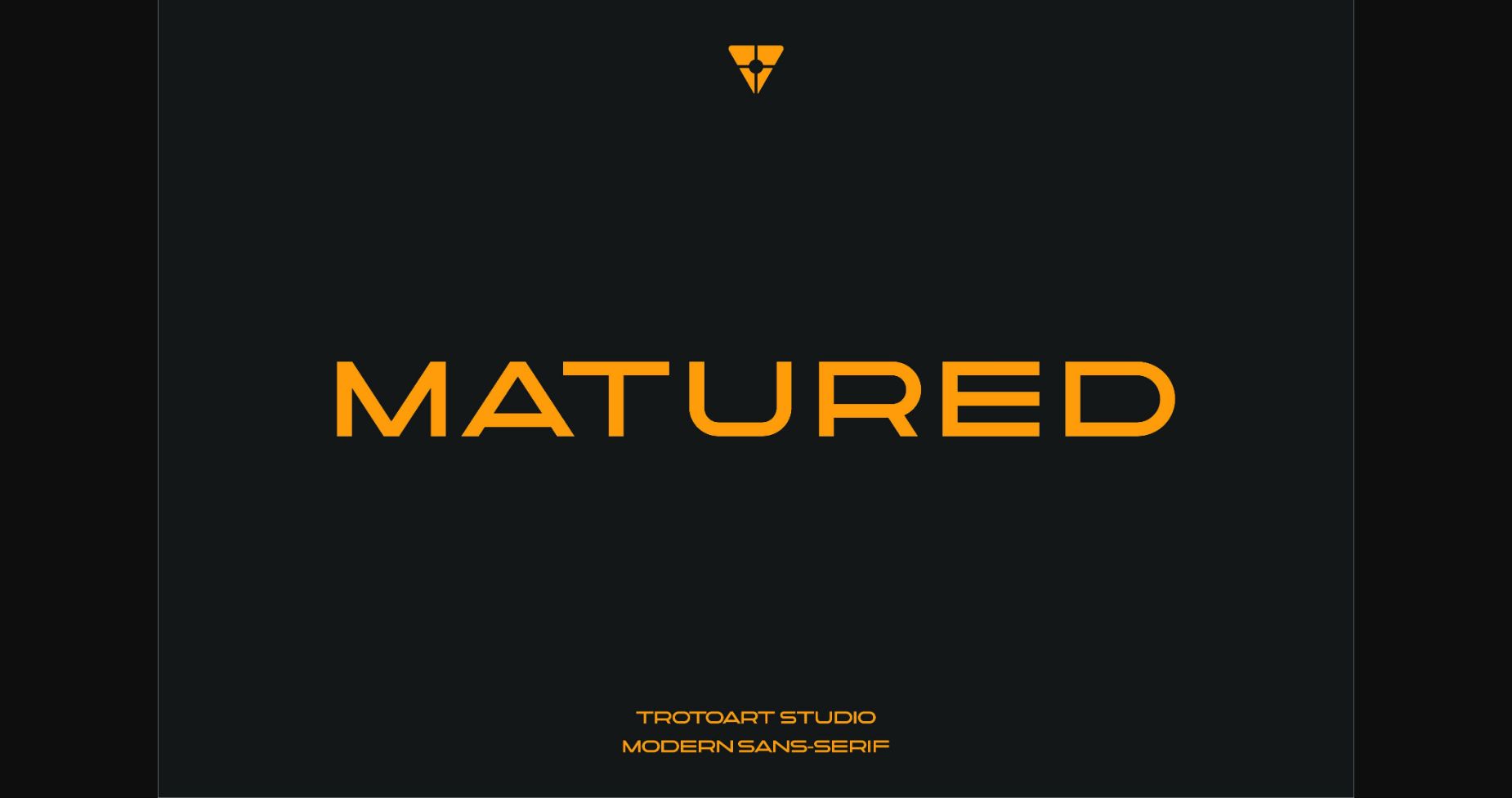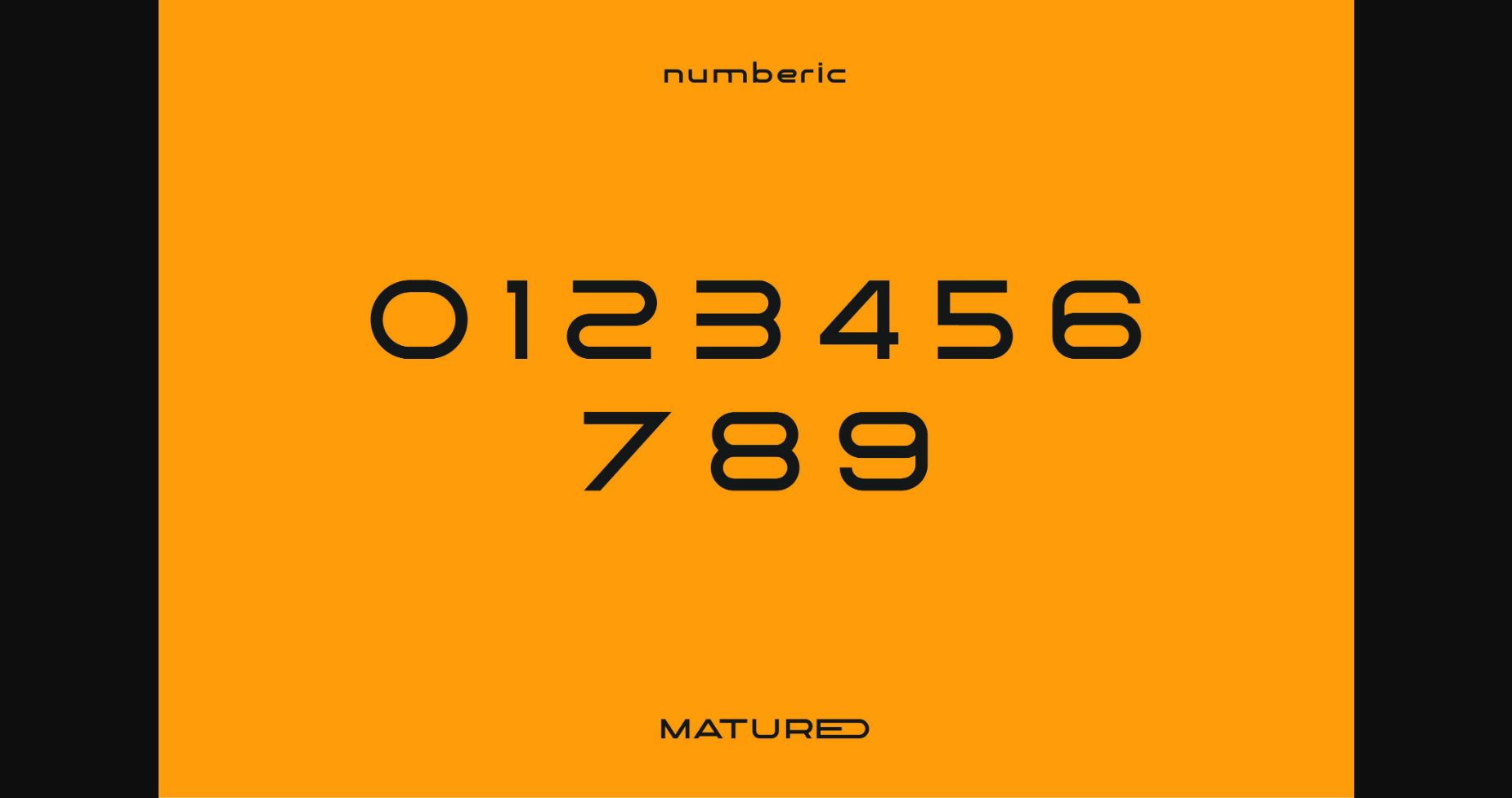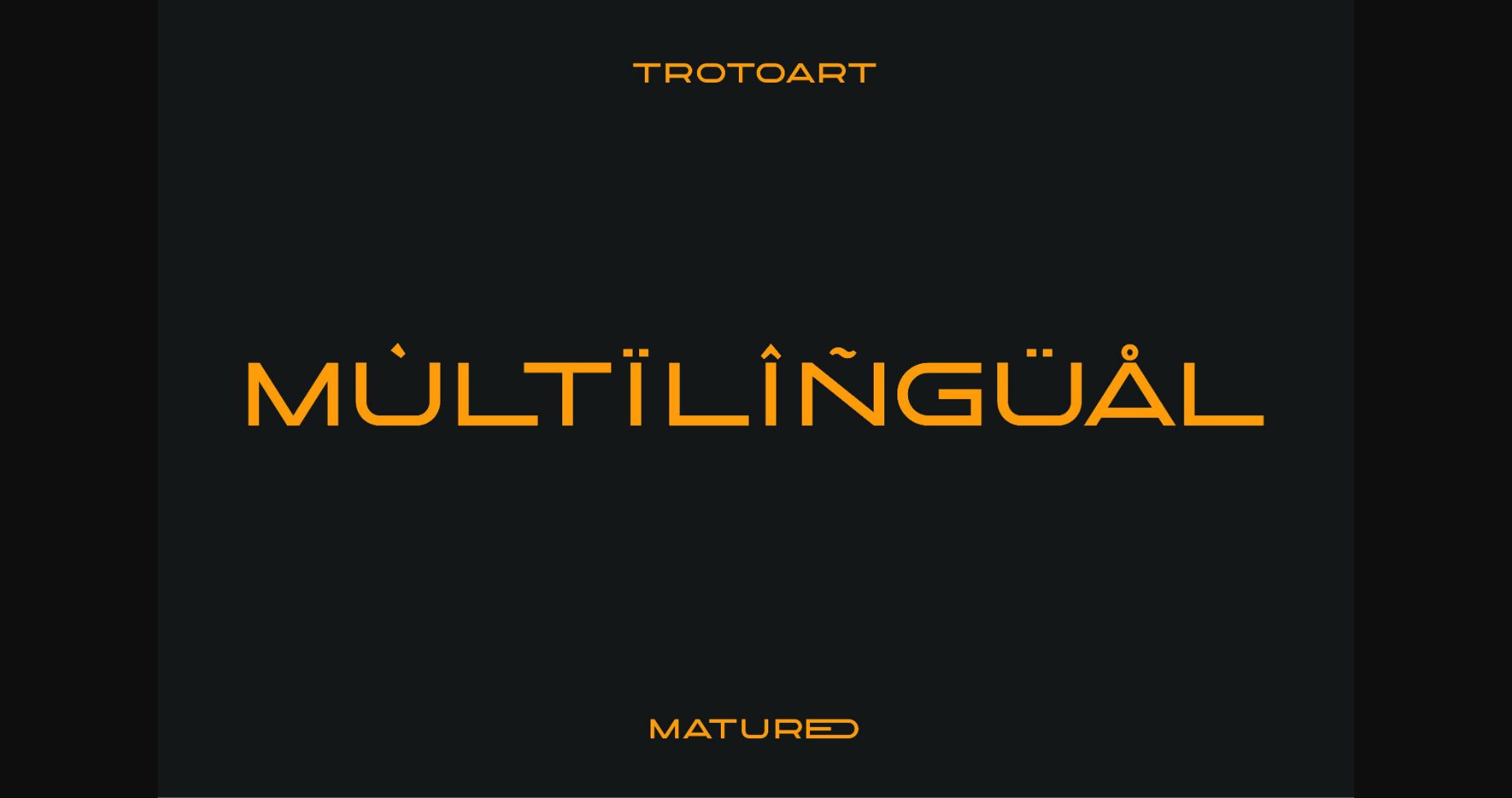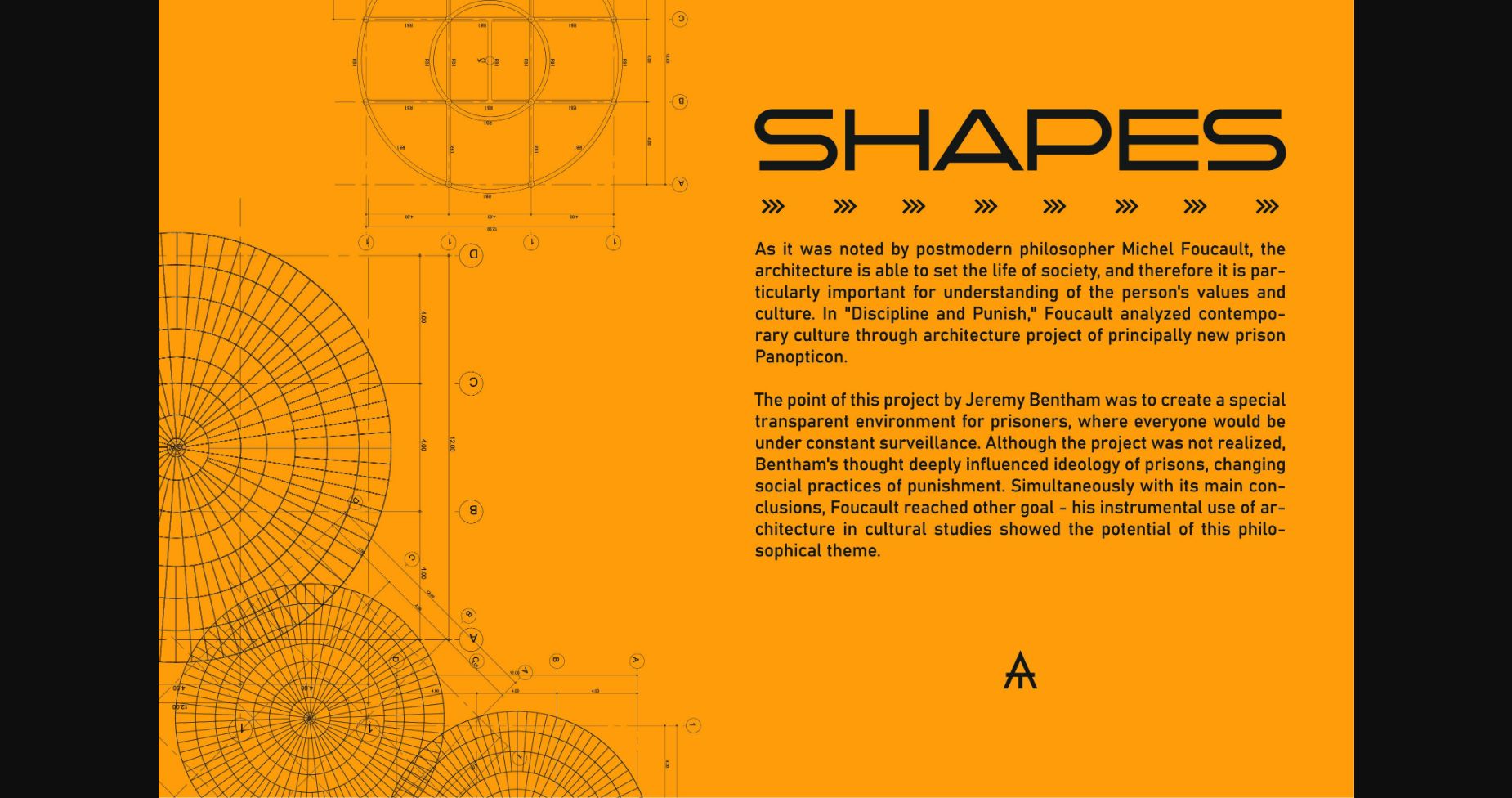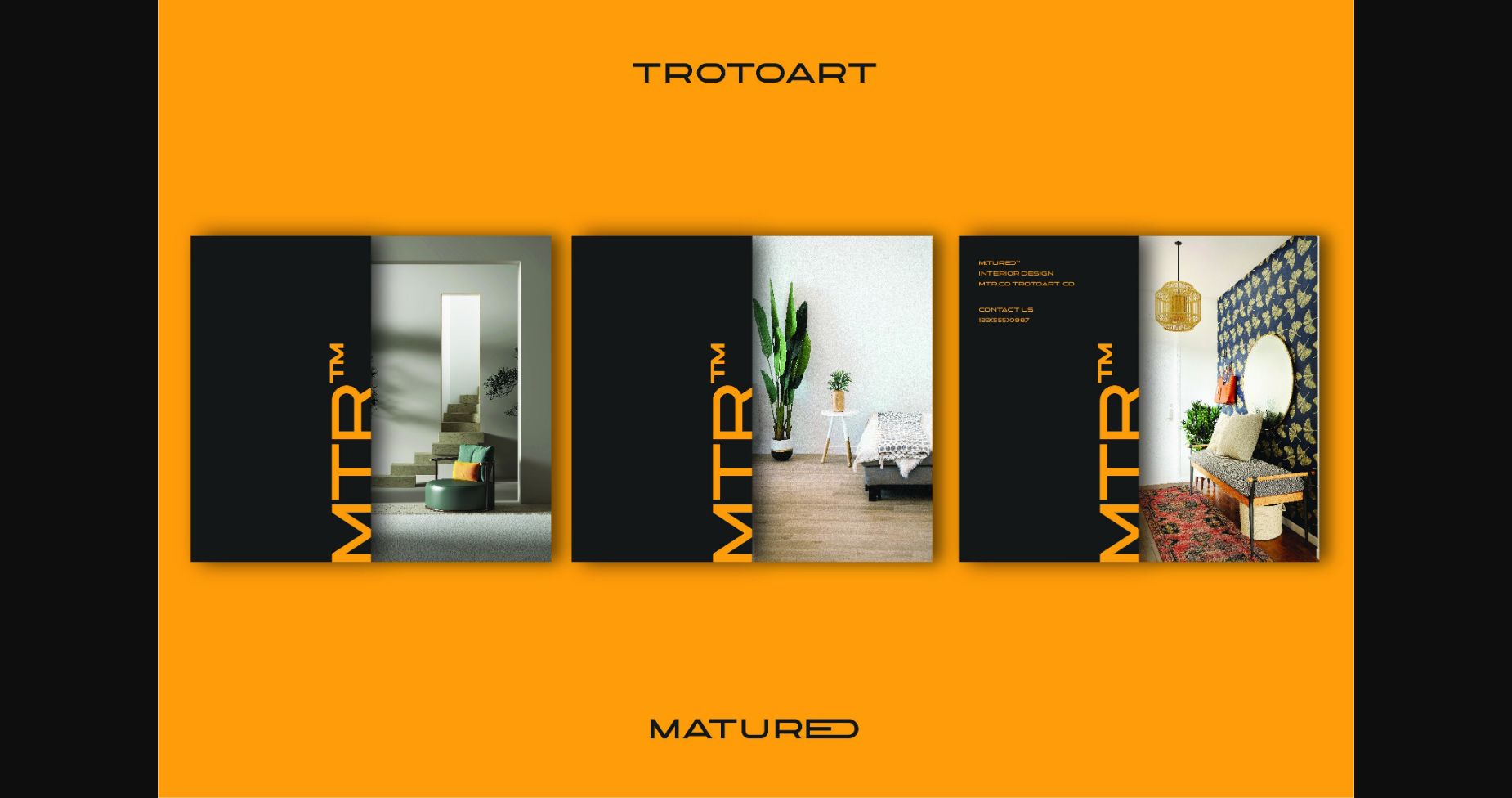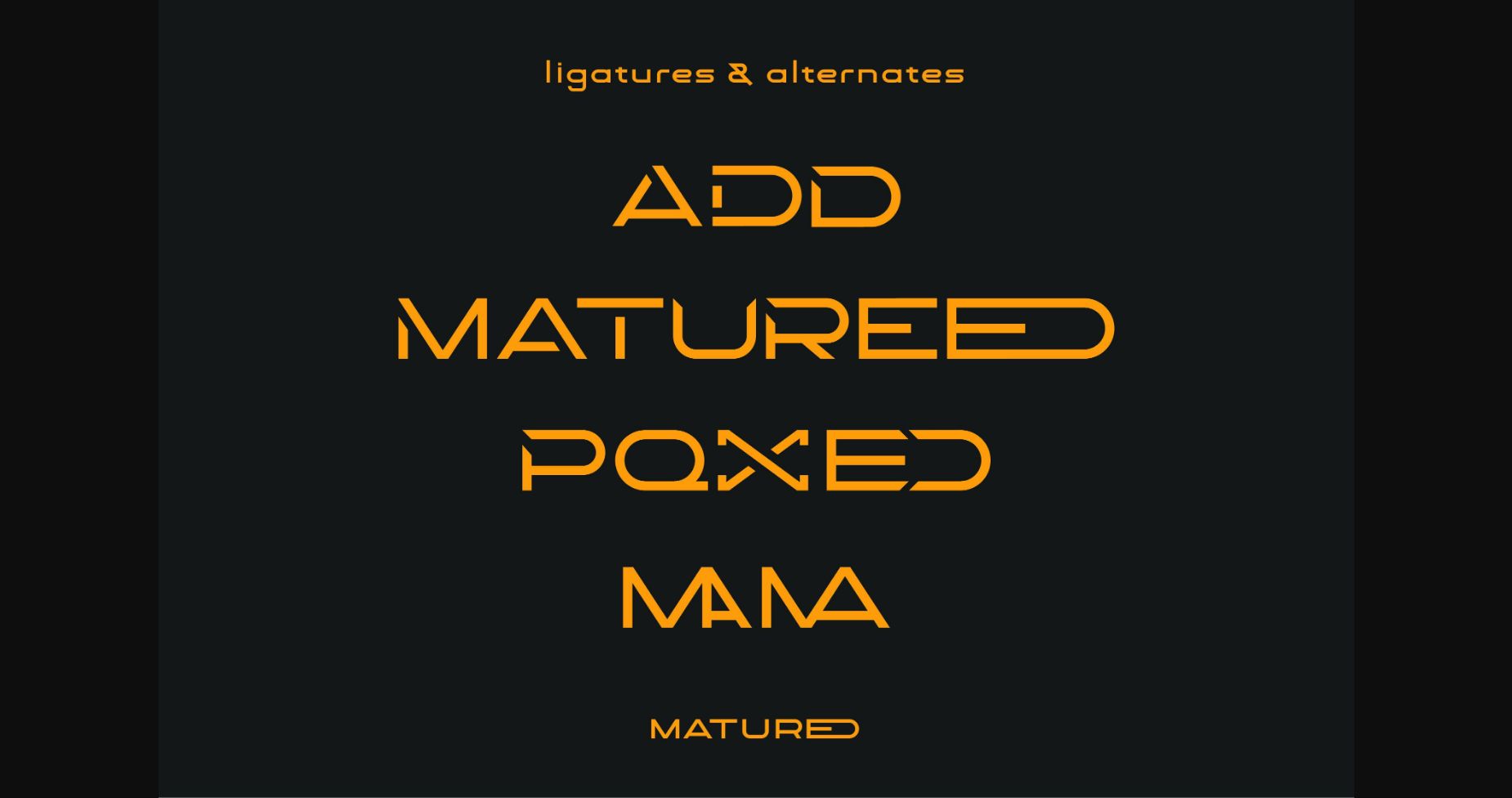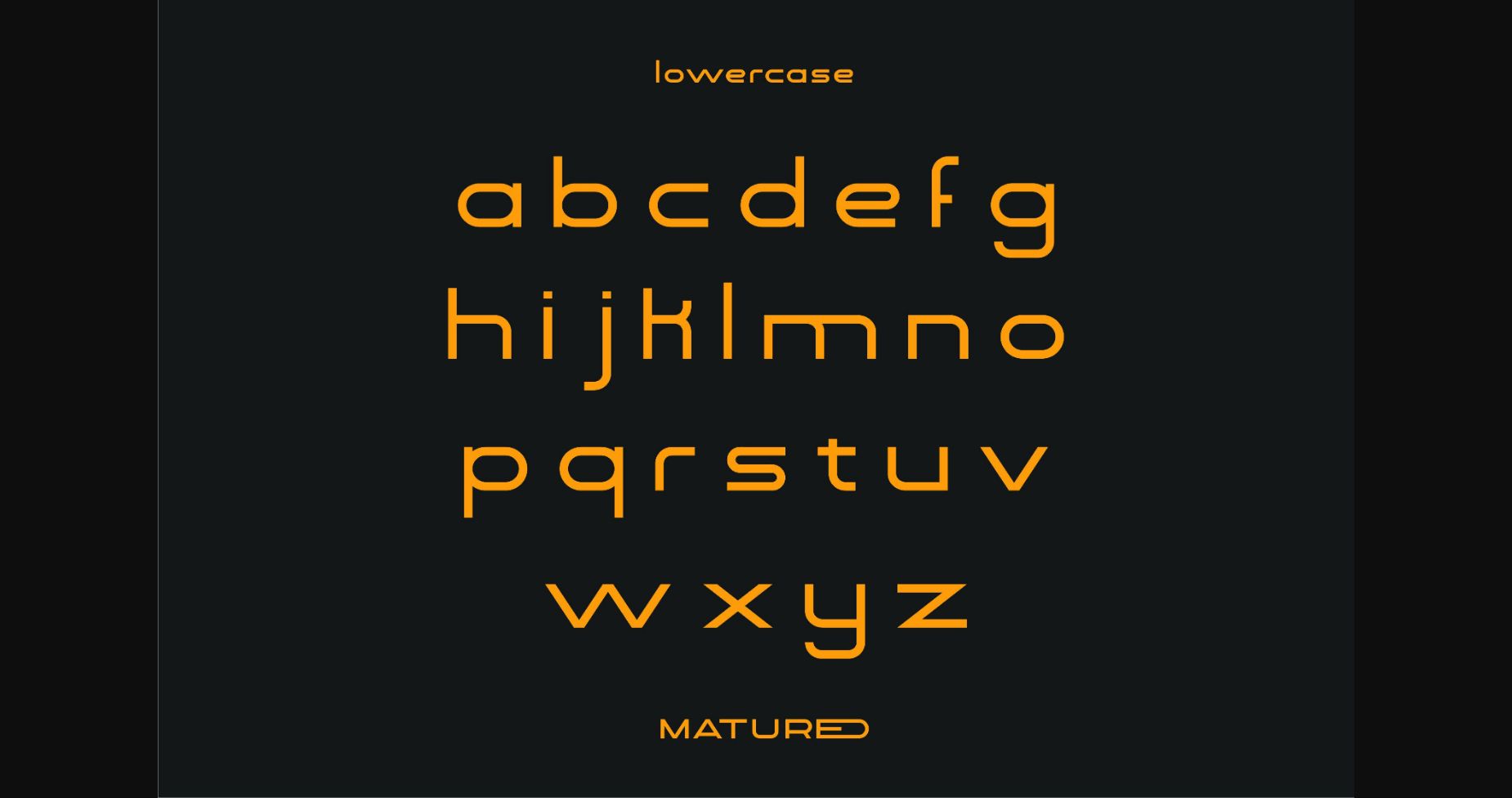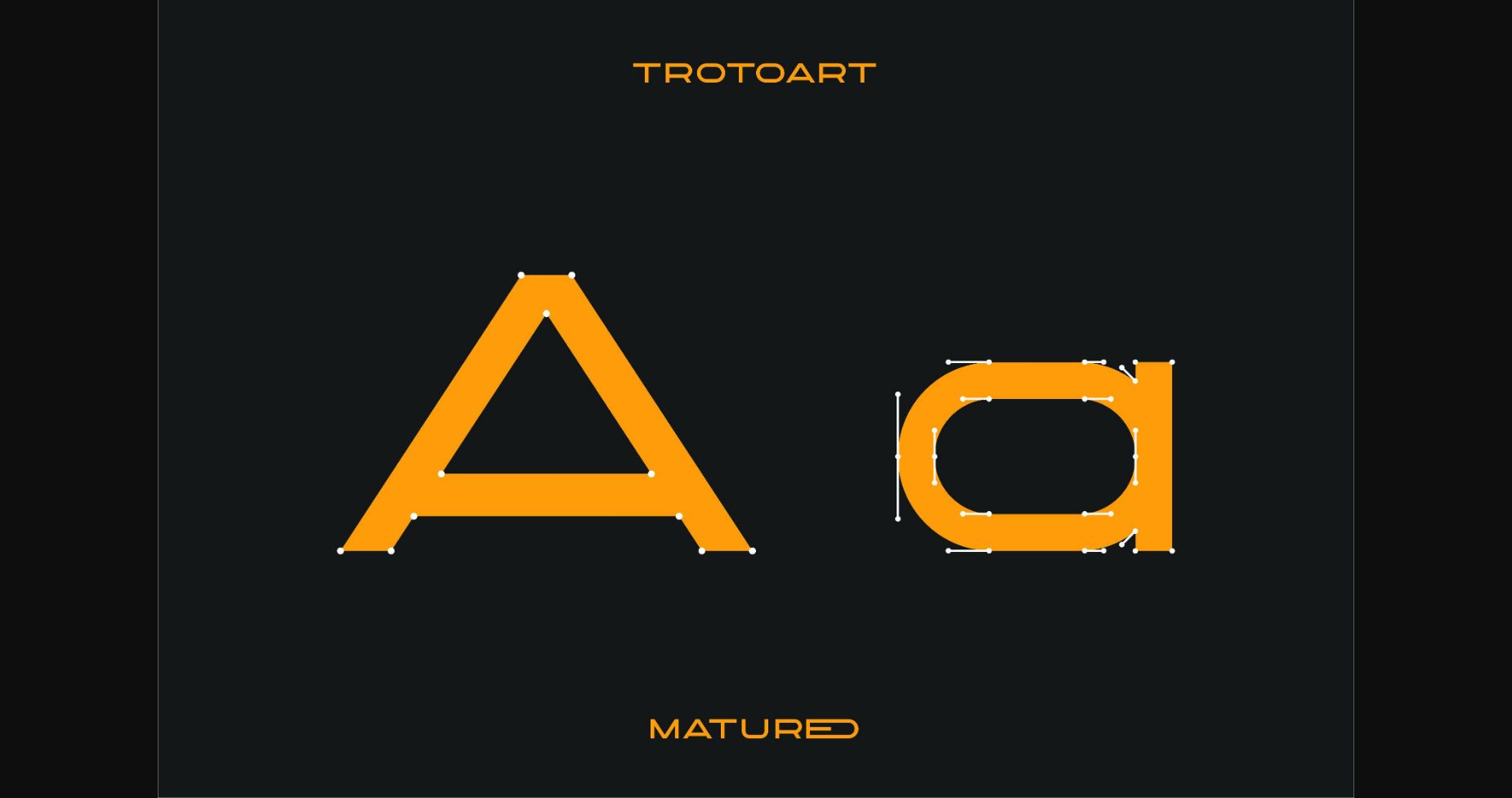
HomeSans Serif FontsMatured Font Sans Serif Fonts Matured Font FacebookXPinterestWhatsApp 1 of 11 ... Matured Font Poster 2... Matured Font Poster 3... Matured Font Poster 4... Matured Font Poster 5... Matured Font Poster 6... Matured Font Poster 7... Matured Font Poster 8... Matured Font Poster 9... Matured Font Poster 10... Matured Font Poster 11... About Matured Font Matured is a modern and neat sans serif font. Incredibly stylish and versatile, this font is suitable for a wide range of projects. DOWNLOAD NOW People also explored Last Night Font Orchid Font Destinys Font ABTS Oklahoma Tamarind Brush Font Blancs Font Love World Font Jelly Font All Backdrop 326 0 TagsMaturedMatured Font Previous articleKingdom FontNext articleLektocy Font LEAVE A REPLY Cancel reply Comment: Please enter your comment! Name:* Please enter your name here Email:* You have entered an incorrect email address! Please enter your email address here Website: Save my name, email, and website in this browser for the next time I comment. Personal Use Free Abberancy Personal Use Free Read more about this font Covelia Personal Use Free Read more about this font Green Farmhouse Personal Use Free Read more about this font Cranberry Gin Personal Use Free Read more about this font BLOG Using Fonts in Digital Marketing: Tips to Strengthen Your Brand Identity In the realm of digital marketing, every visual element plays a crucial role in shaping a brand's identity, and fonts are no exception. The... Top 10 Handwritten Fonts That Elevate Your Designs Best Fonts for YouTube Videos: Make Your Thumbnails Stand Out Where to Buy American Fonts Online in 2024